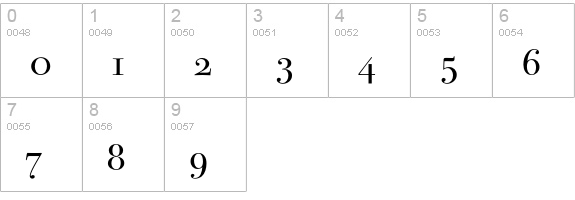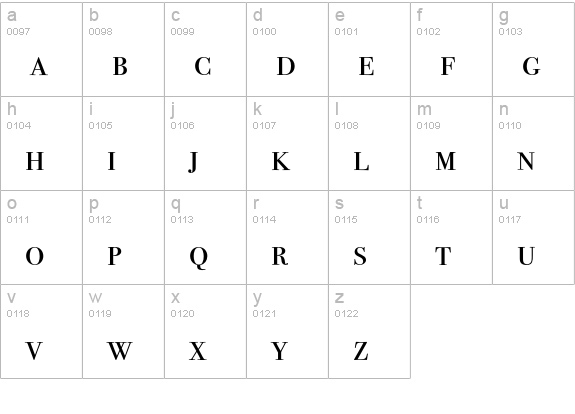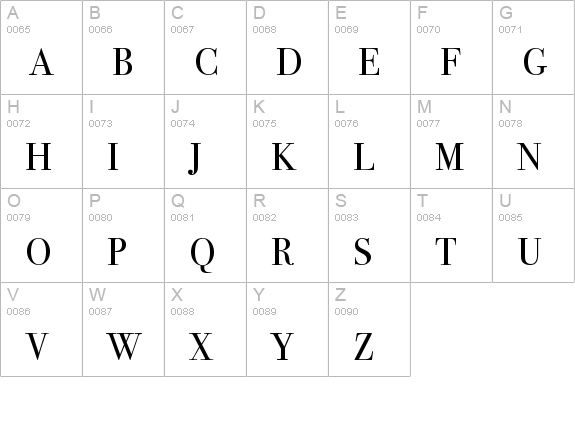
BodoniSeventytwoEF-BookSC Font Details
BodoniSeventytwoEF-BookSC is a sophisticated and elegant font that exudes timeless beauty and refinement. With its classic serif style and graceful curves, this font is perfect for adding a touch of sophistication to any design project. The slender and stylish characters of BodoniSeventytwoEF-BookSC make it ideal for use in editorial design, branding, and luxury packaging. What sets BodoniSeventytwoEF-BookSC apart is that it is not only visually stunning but also free to use. Yes, that's right - you can download this exquisite font for free at FontsMarket.com. Whether you're a designer looking to elevate your projects or a business owner seeking a touch of class for your brand, BodoniSeventytwoEF-BookSC is the perfect choice. Download it today and add a touch of timeless elegance to your creations.